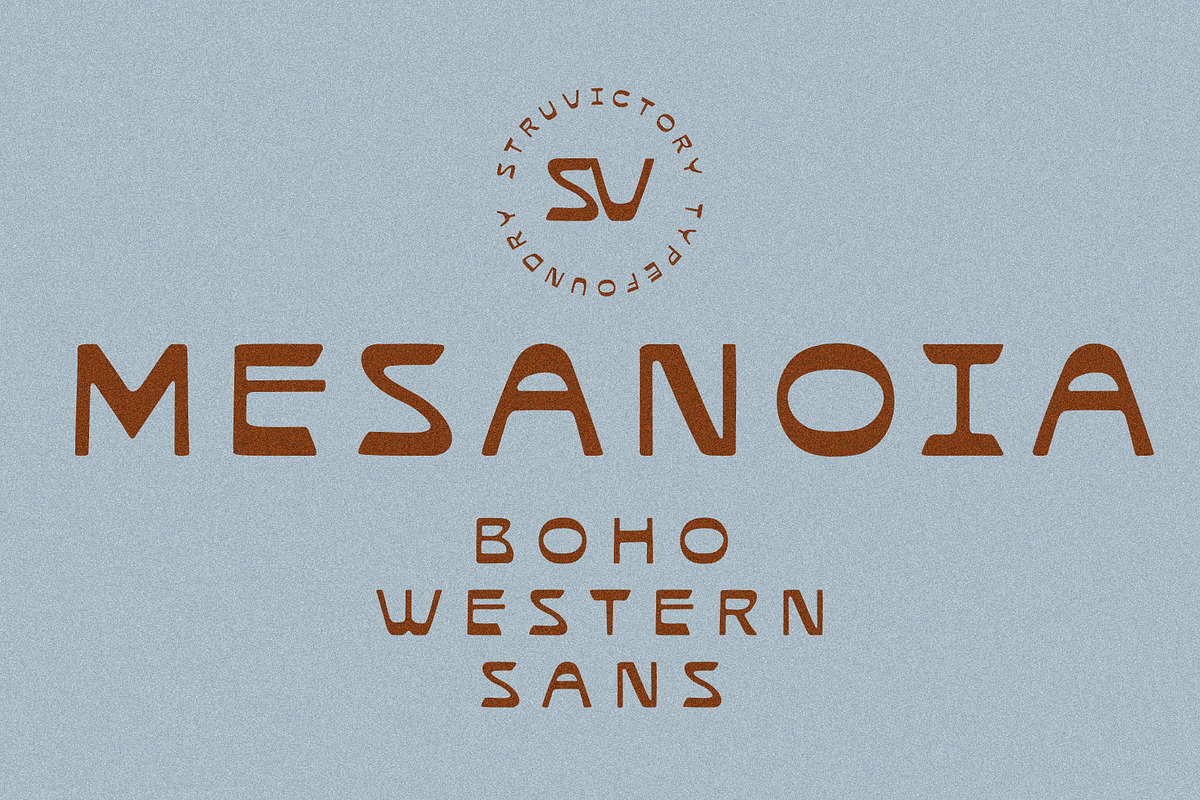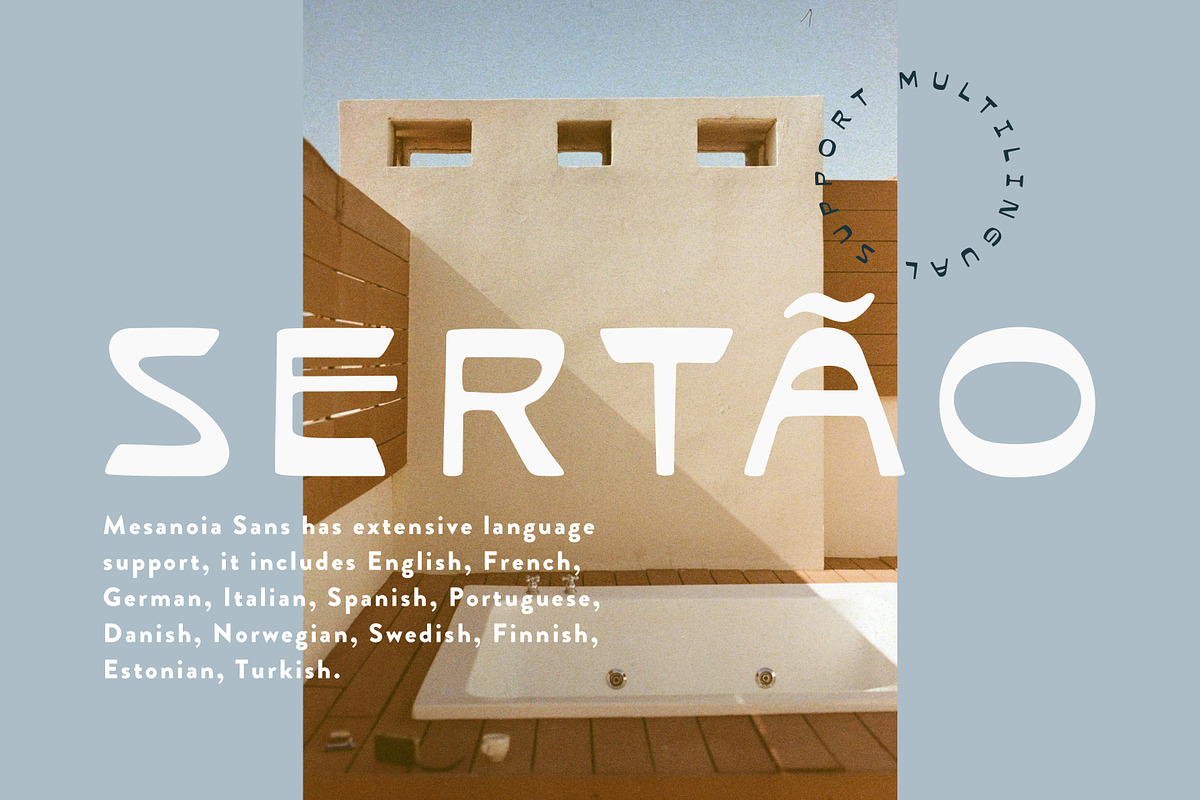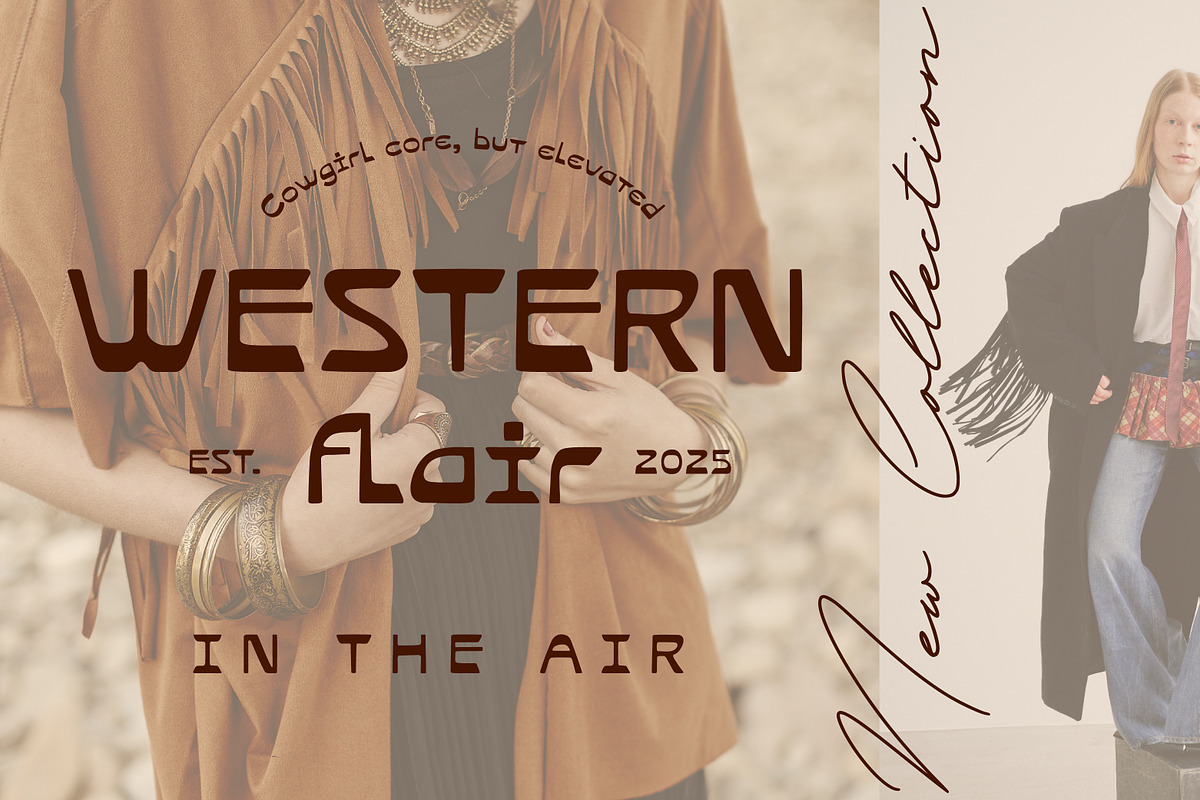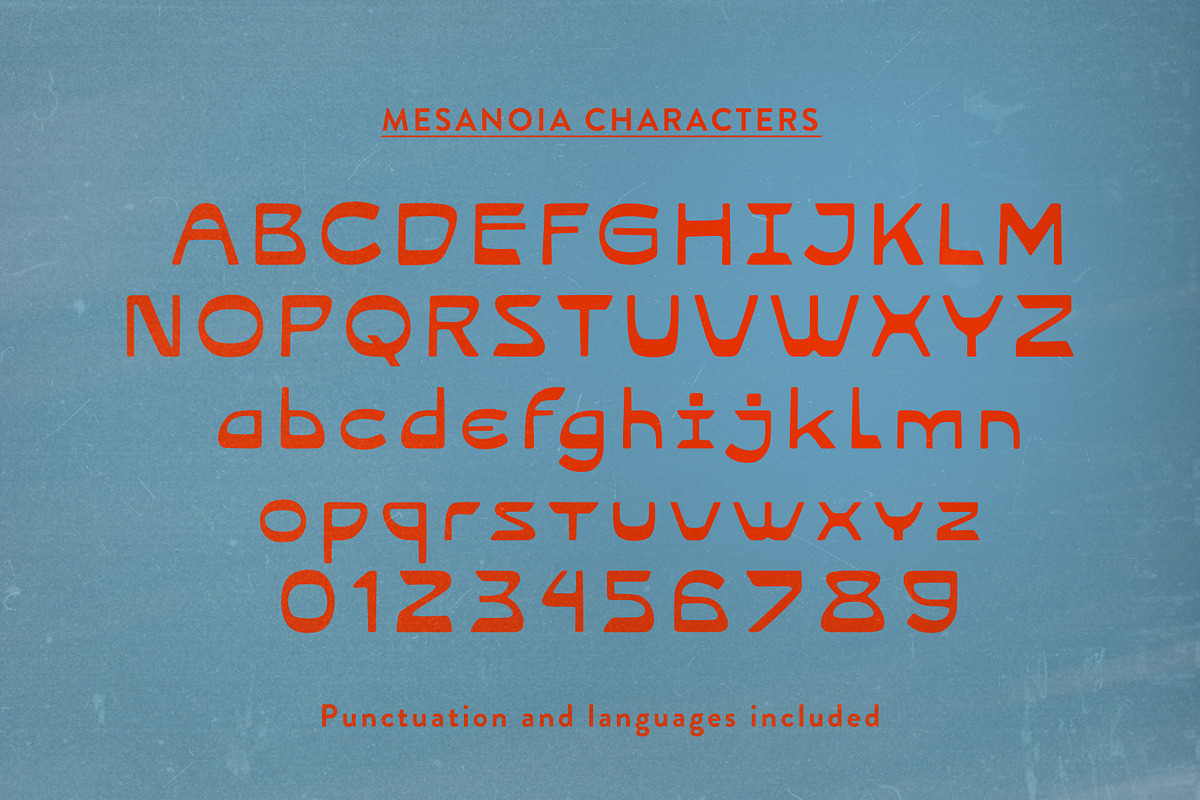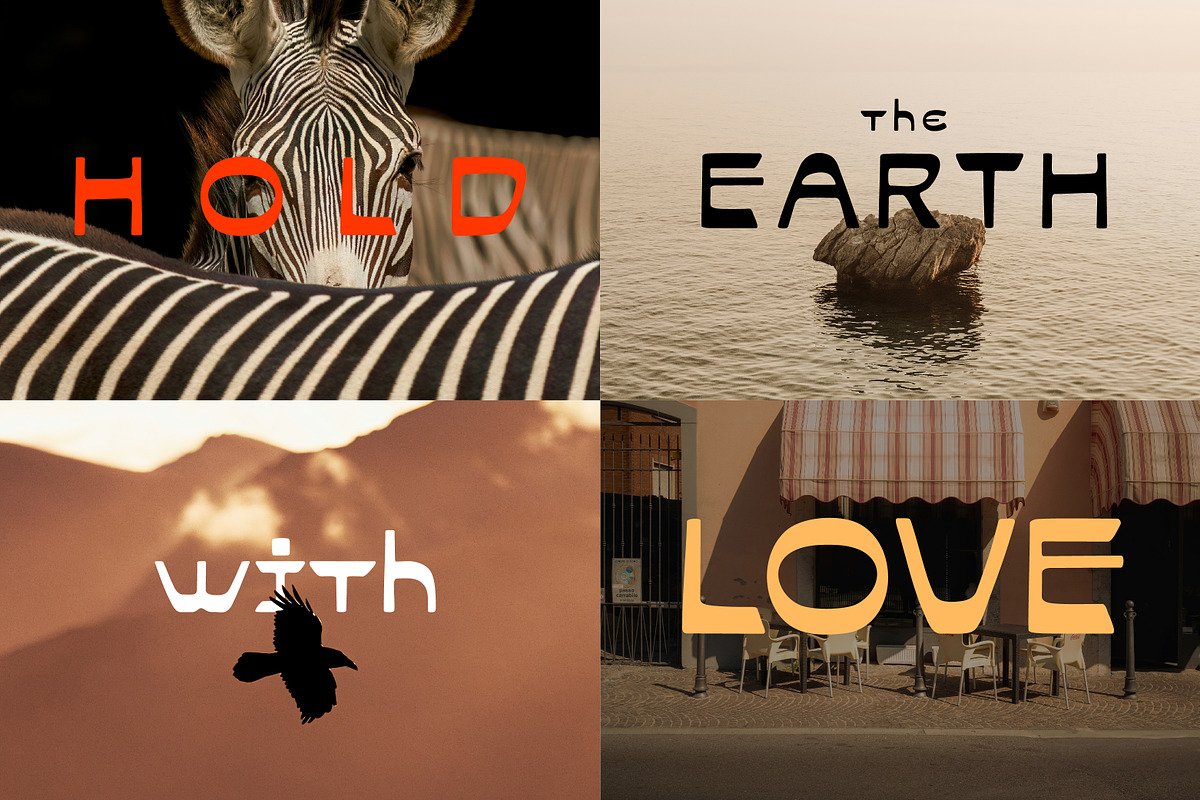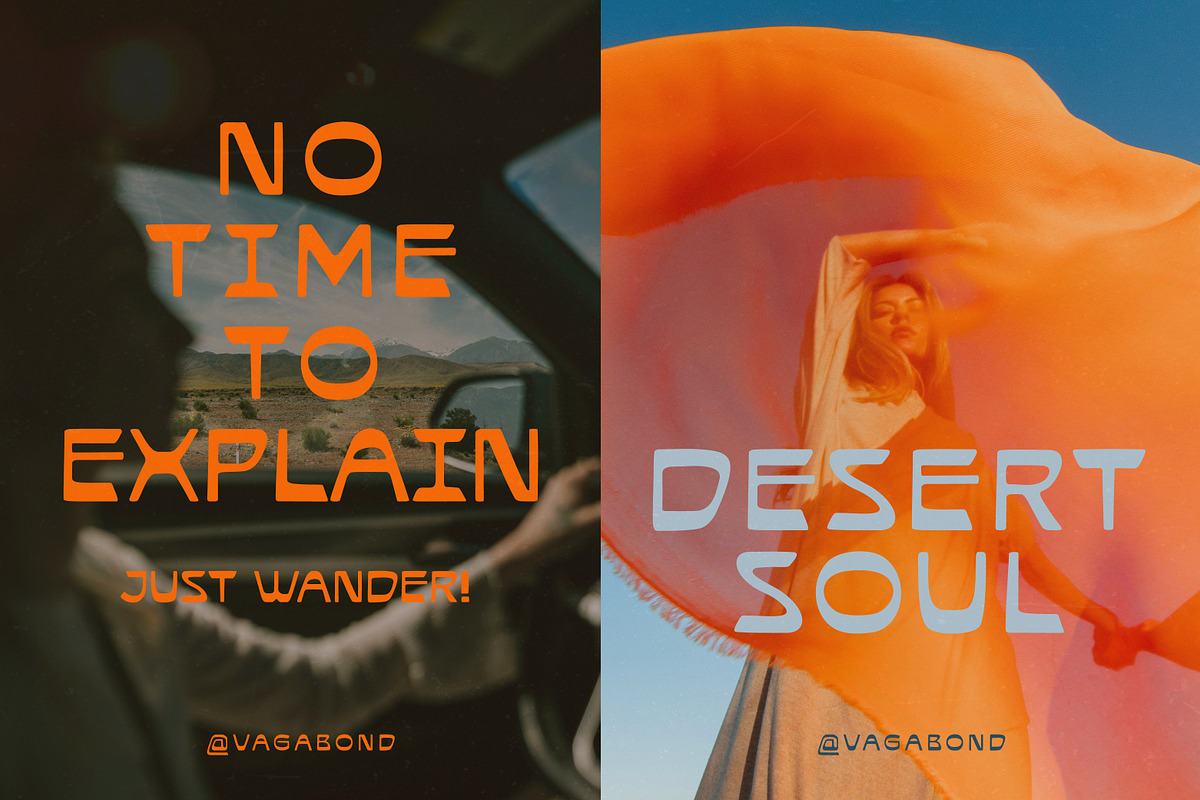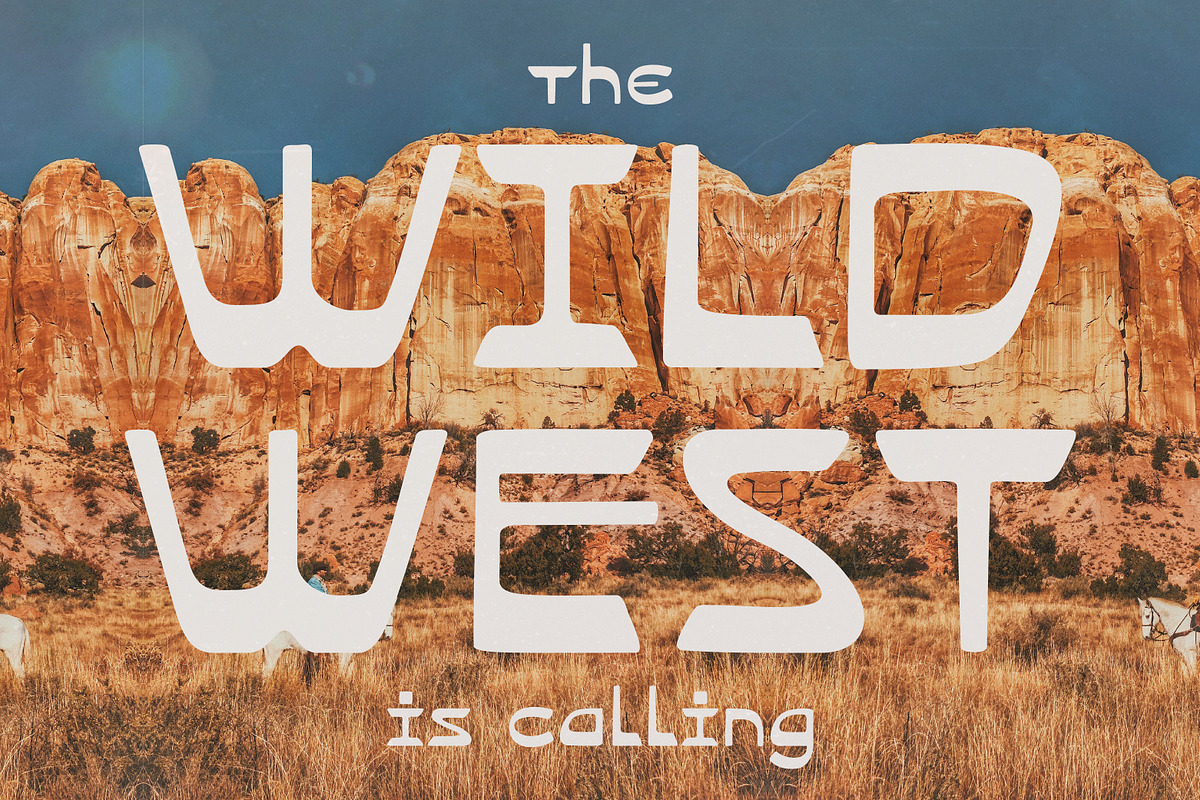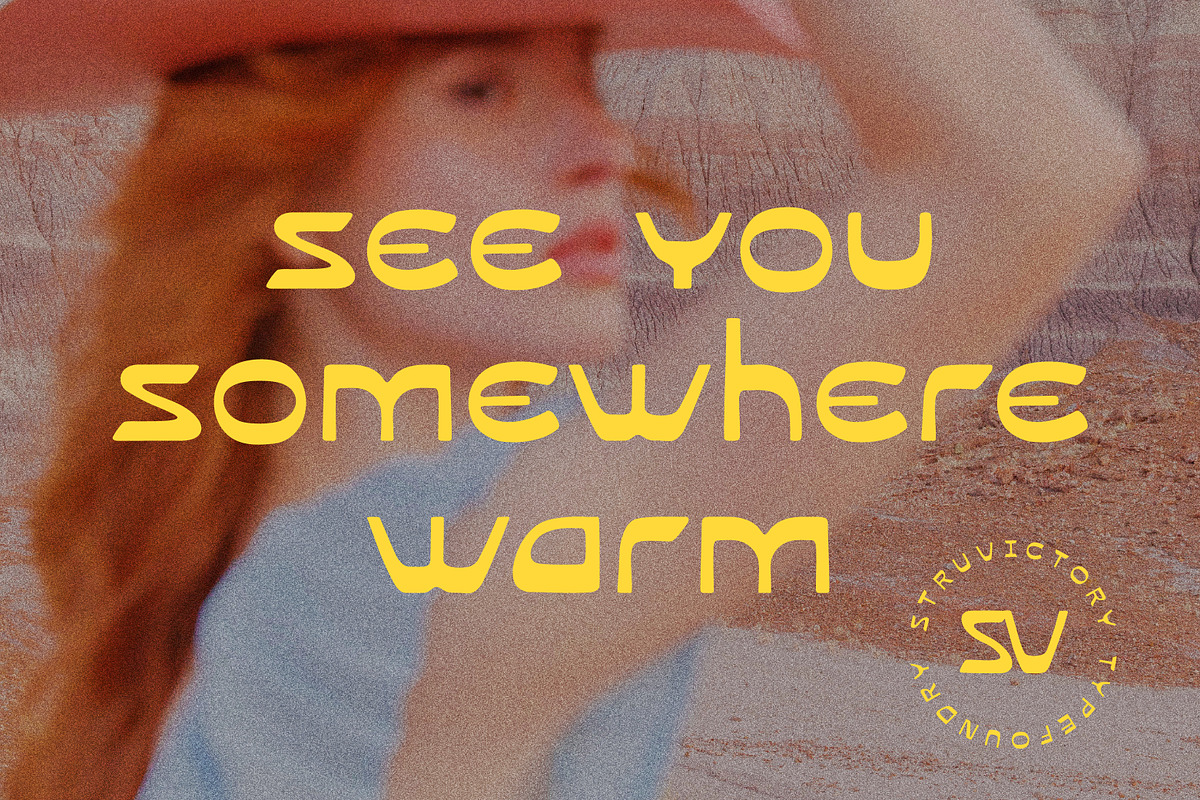
Mesanoia Western Boho Nostalgic Sans
Mesanoia is a free-spirited display sans with wild western roots and a bohemian soul. Inspired by desert landscapes, sun-faded towns, and the spirit of wanderers, this font blends retro charm with a contemporary edge.
Its playful curves and rugged cuts create a warm, organic rhythm — perfect for branding, apparel, travel editorials, packaging, signage, or anything that calls for a bit of dusty elegance. From bold headlines to soulful quotes, Mesanoia adds personality without overpowering your message.